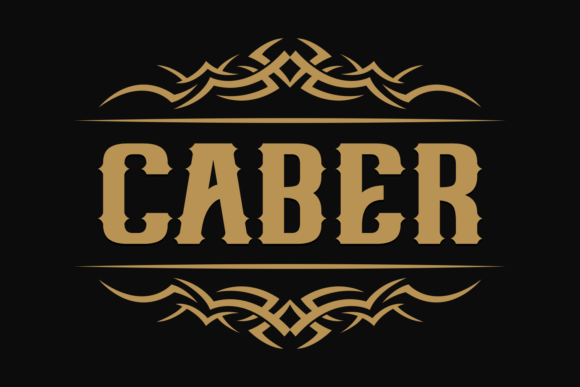
Unleashing the Power of Typography: Introducing Caber Font
As designers, we’ve all been there – staring at a blank canvas, trying to convey a message that’s both bold and elegant. The challenge of creating a visual impact without sacrificing clarity can be daunting. But what if you had the perfect tool to help you achieve that balance? Enter the Caber Font, a modern take on the traditional blackletter style that’s about to revolutionize the way you think about typography.
This versatile font is more than just a design element – it’s a statement piece that adds depth and character to any application. With its strong, dynamic strokes and intricate details, the Caber Font is perfect for designers looking to make a lasting impression. Whether you’re creating logos, posters, packaging, or anything in between, this font is sure to elevate your designs and leave a lasting impact.
Caber Font Key Features
- Unique Characteristics: Caber Font features a unique, hand-drawn design with a mix of modern and vintage elements, making it suitable for creative projects.
- Font Style: Caber Font comes in two styles: Regular and Bold, allowing designers to choose the perfect look for their project.
Caber Font Review
I recently had the chance to work with the Caber Font, and I must say it’s a unique addition to any design project. ✨ One of the things that stood out to me was the font’s versatility – it can easily be used for both modern and traditional designs, which is a rare find in a single font.
Here are some of the things that work well with the Caber Font:
- ✨ Wide range of weights and styles, making it easy to customize for different design needs
- ✨ Excellent for creating bold headlines or titles
- ✨ Smooth and elegant curves, making it perfect for creative and artistic projects
- ⚠️ Limited support for certain languages, which may be a concern for global design projects
- ⚠️ Not ideal for small text or body copy, as the font can become too overwhelming
- ⚠️ May require additional styling to achieve a cohesive look
Overall, the Caber Font is a solid addition to any design library. While it may have some limitations, its versatility and unique style make it a great choice for designers looking to add some flair to their projects.
Tips: Use Caber Font for headings and titles to add a touch of elegance to your designs. Experiment with different font sizes and colors to create visual hierarchy.
Tips: Use Caber Font for typography-heavy designs, such as posters or brochures. Experiment with layer styles and effects to add depth and texture.
Tips: Use Caber Font for presentations or reports to add a professional touch. Experiment with font sizes and colors to create a clear visual hierarchy.
Caber Font is ideal for:
- Typography-heavy designs
- Posters and brochures
Remember to experiment with different font sizes, styles, and colors to get the most out of Caber Font.